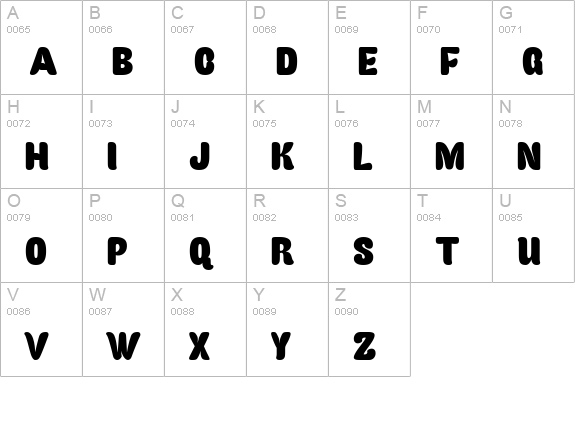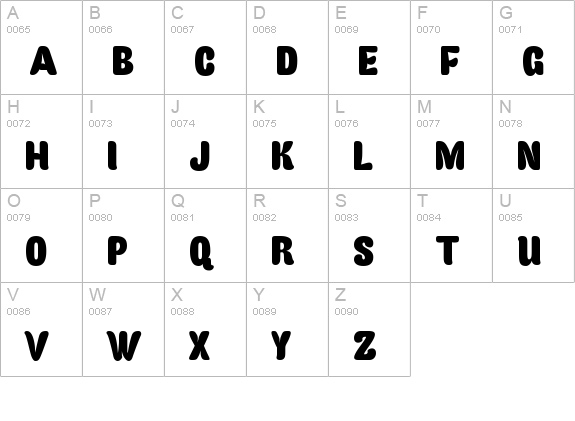
Caprica Sans Personal Use Font Details
Caprica Sans Personal Use font is a sleek and modern typeface that is perfect for any design project. With its clean lines and smooth curves, this font exudes a sense of professionalism and sophistication. Whether you are creating a logo, website, or printed materials, Caprica Sans Personal Use font will add a touch of elegance to your work. This font is not only visually appealing, but it is also incredibly versatile. It can be used for both headings and body text, making it a great choice for any project. The wide range of weights and styles available allows you to create different effects and emphasize certain elements of your design. One of the best things about Caprica Sans Personal Use font is that it is free. Yes, you read that right! This high-quality font is freely available to download at FontsMarket.com. You don't need to worry about breaking your budget or paying any licensing fees. Simply visit FontsMarket.com, find the Caprica Sans Personal Use font, and start using it in your projects today. With its modern and professional design, versatility, and the fact that it is completely free, Caprica Sans Personal Use font is a must-have for any designer or creative professional. Don't miss out on this incredible opportunity to enhance your work with this amazing font. Download Caprica Sans Personal Use font now and take your designs to new heights.